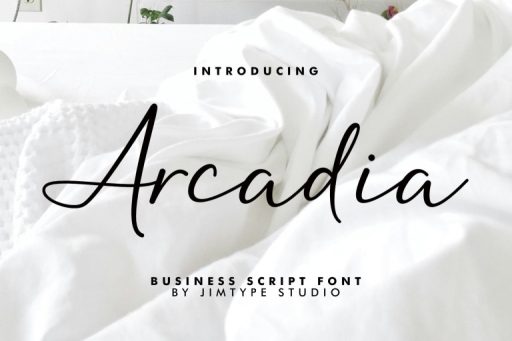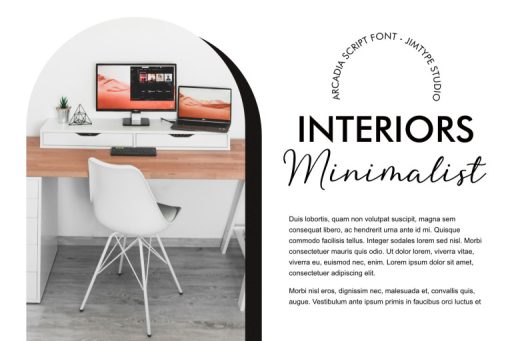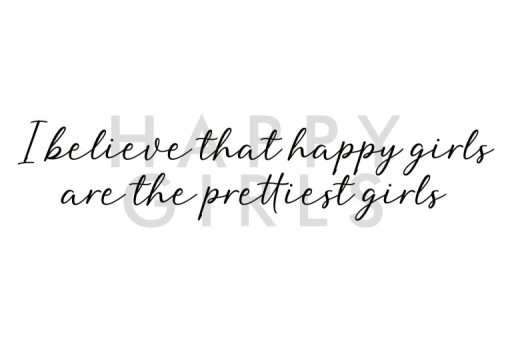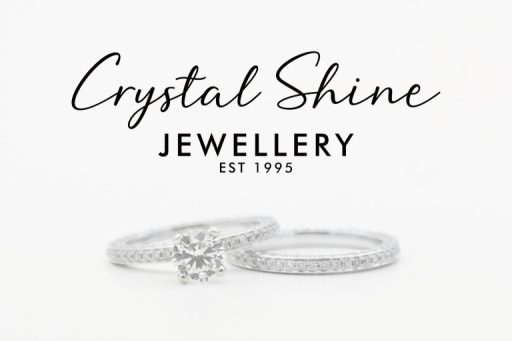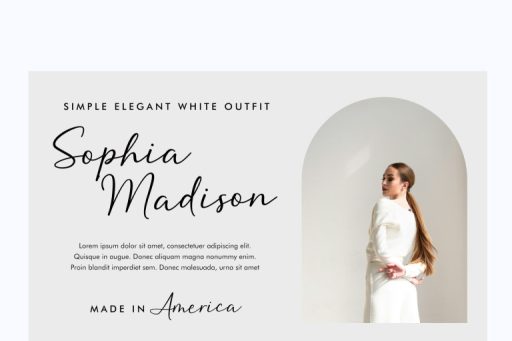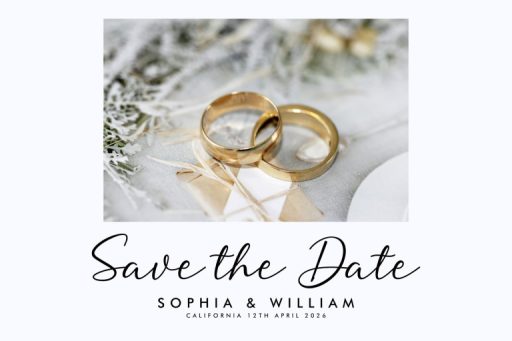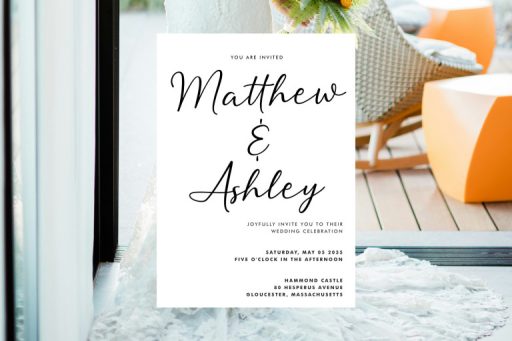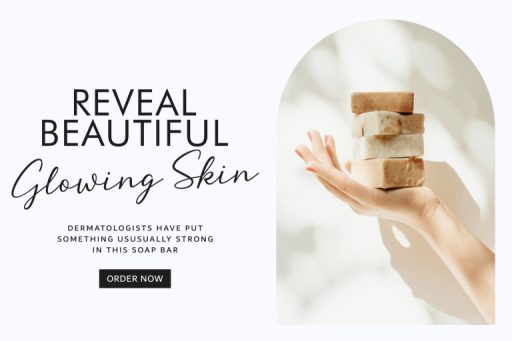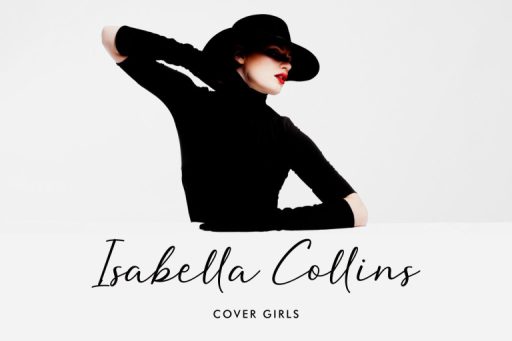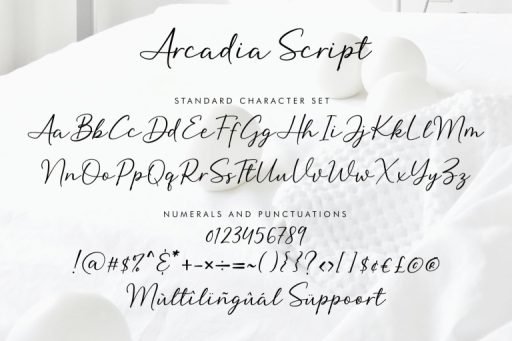
Arcadia Font - Business Branding Script Font from Jimtype Studio
Arcadia Script Font
Arcadia Font – Business Branding Script Font from Jimtype Studio
Arcadia new script font that comes very elegant and classy to enhance your branding. With very smooth curves and silky smooth edges. Arcadia is perfect for adding a classy and modern touch to your project.
The Arcadia font is perfect for branding, social media, product design, advertising and weddings. Arcadia Font is a complete solution for projects that demand elegance and class. Whether for branding, social media, product design, advertising or weddings, this font ensures your designs shine with elegance and class.